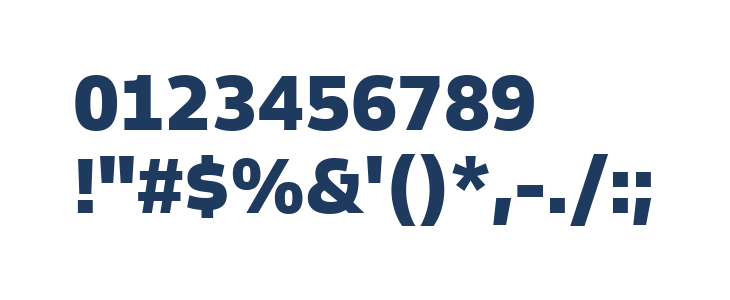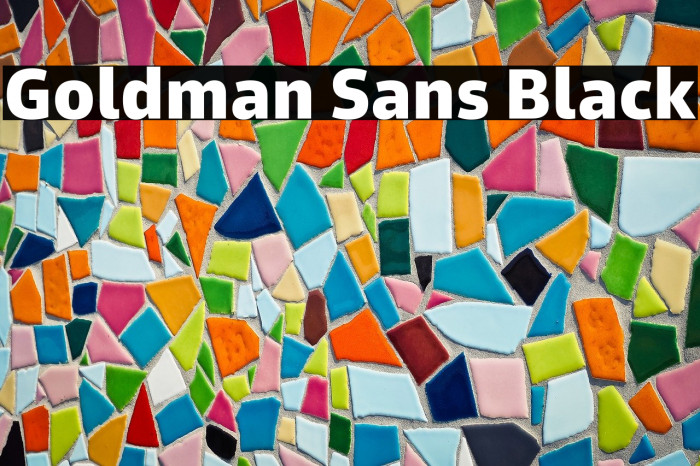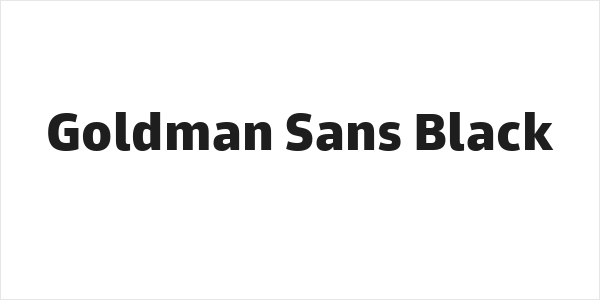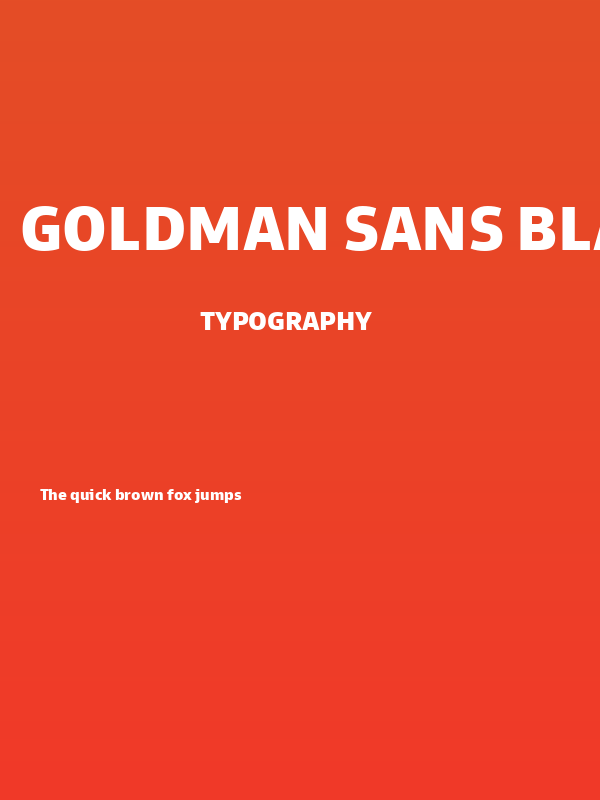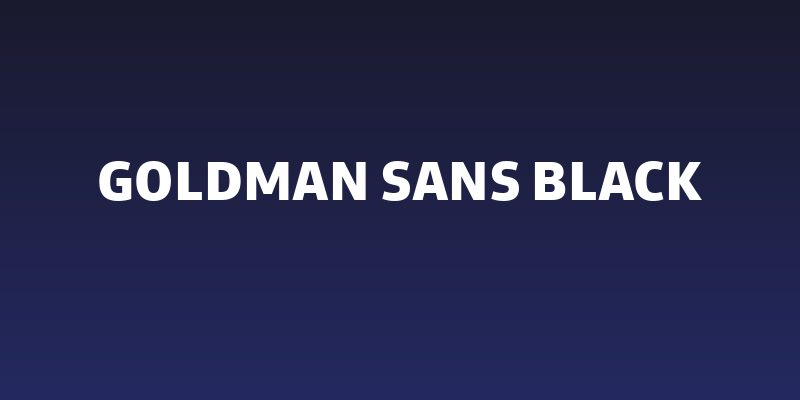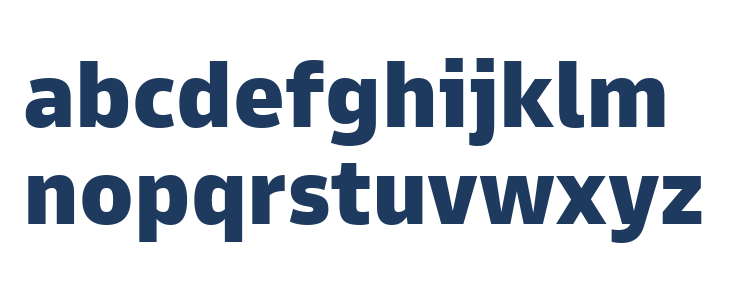
Goldman Sans Black Font
Goldman Sans Black Description
This font exhibits a bold and robust sans-serif style, characterized by its thick, uniform strokes and clean lines. The uppercase and lowercase letters maintain a consistent weight, providing a strong visual impact. The numerals are equally bold, ensuring clarity and legibility. Special characters are designed with the same boldness, making them stand out effectively. The overall design is modern and straightforward, suitable for various applications that require a strong and confident typeface.
| Proposed Projects | Ideal for branding, headlines, posters, and digital media where a bold statement is needed. |